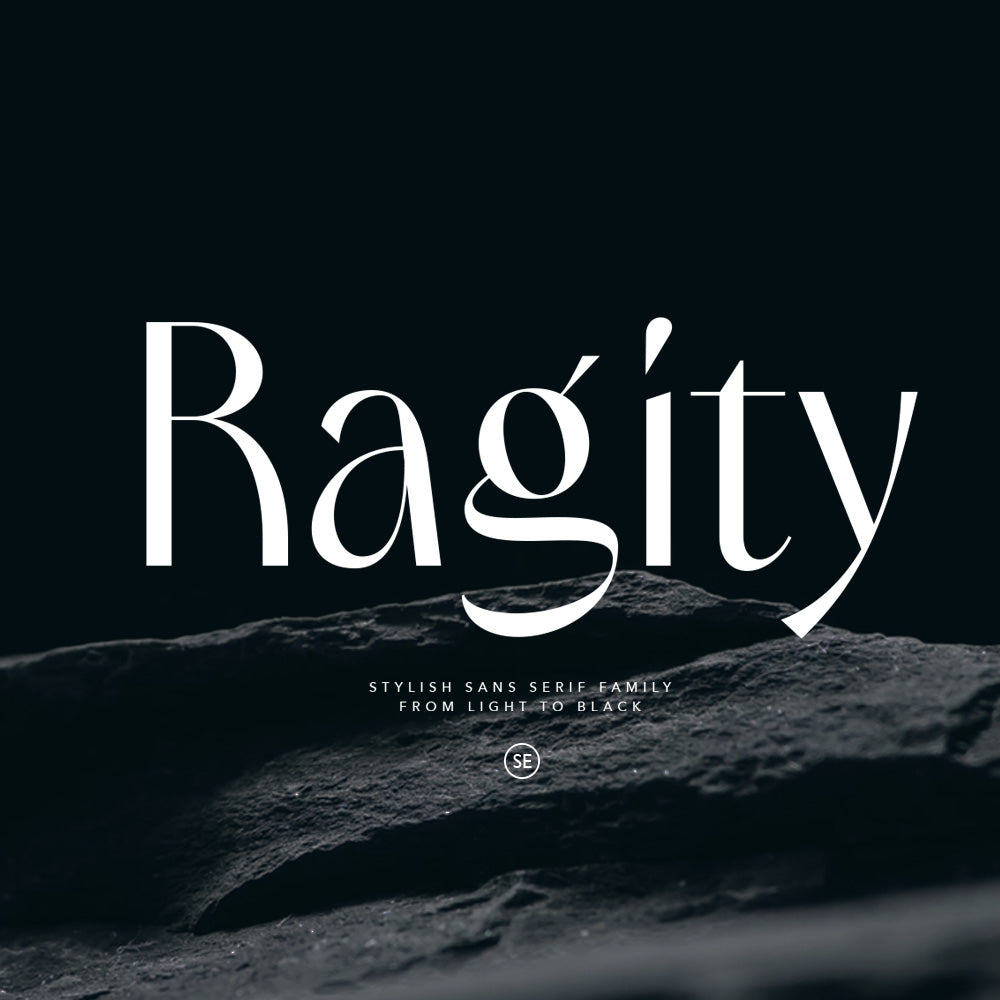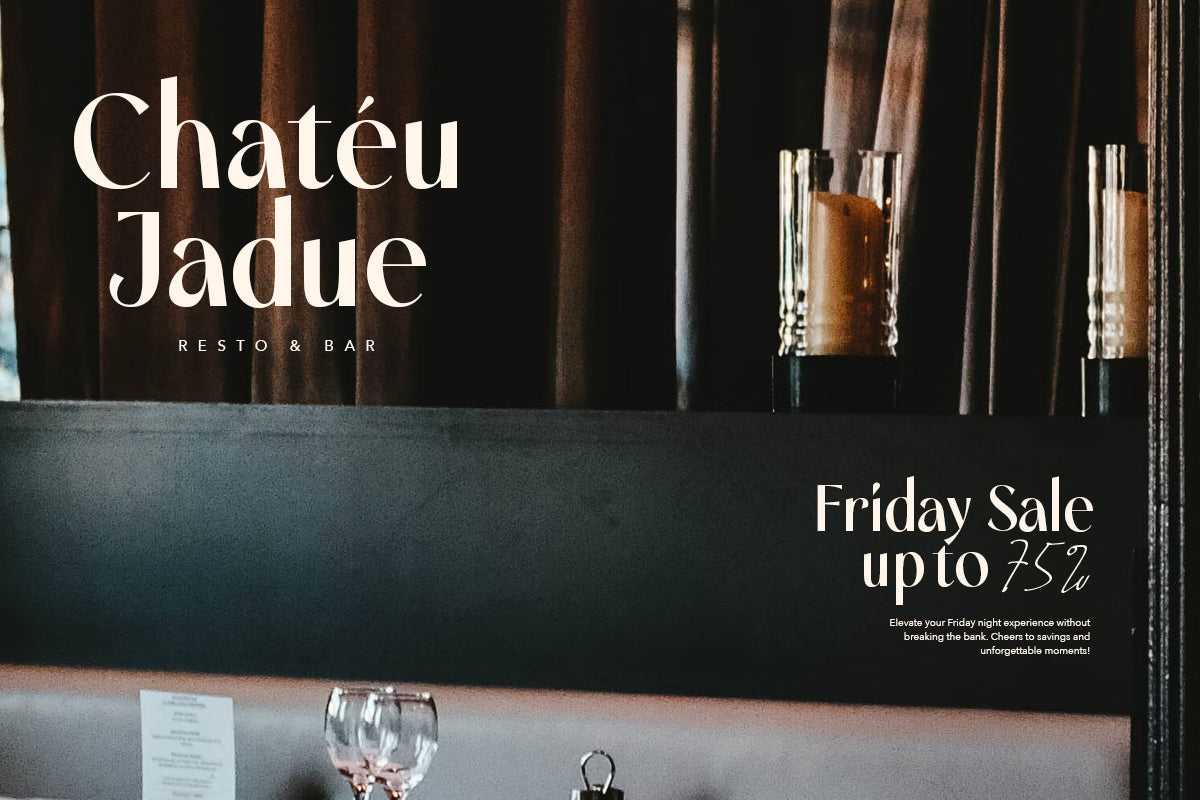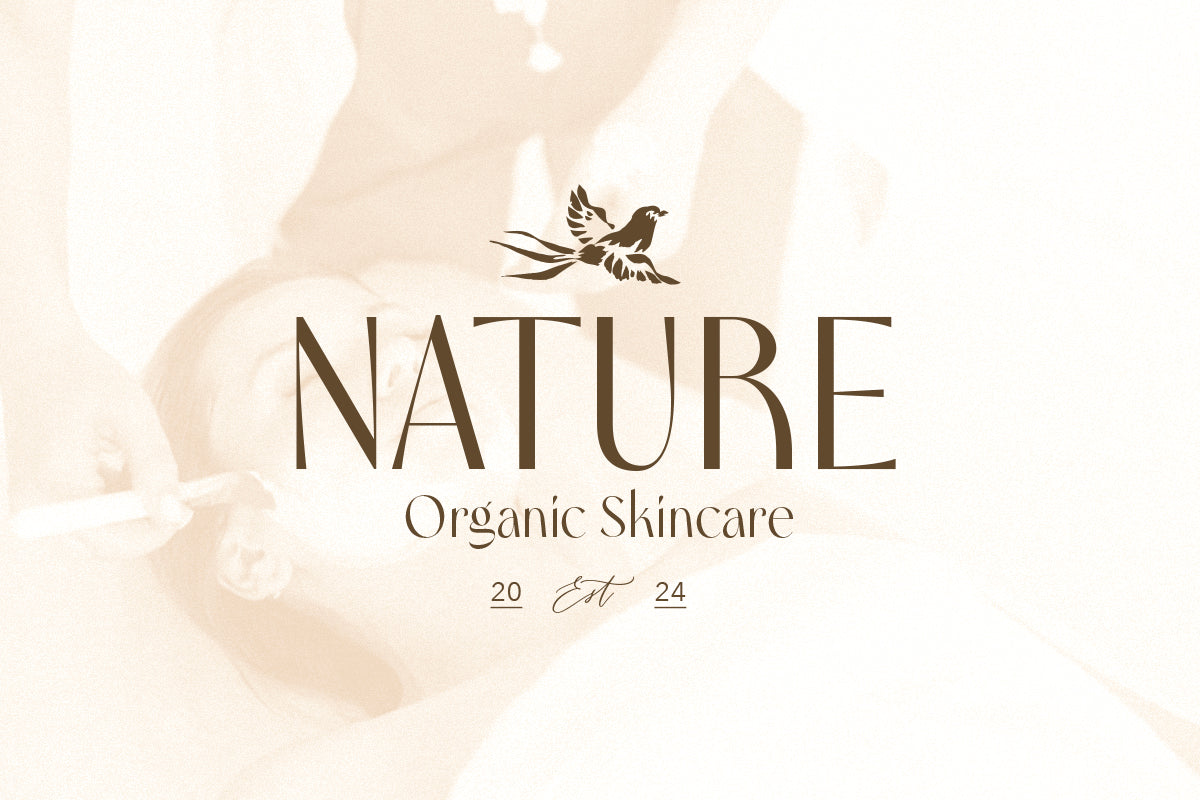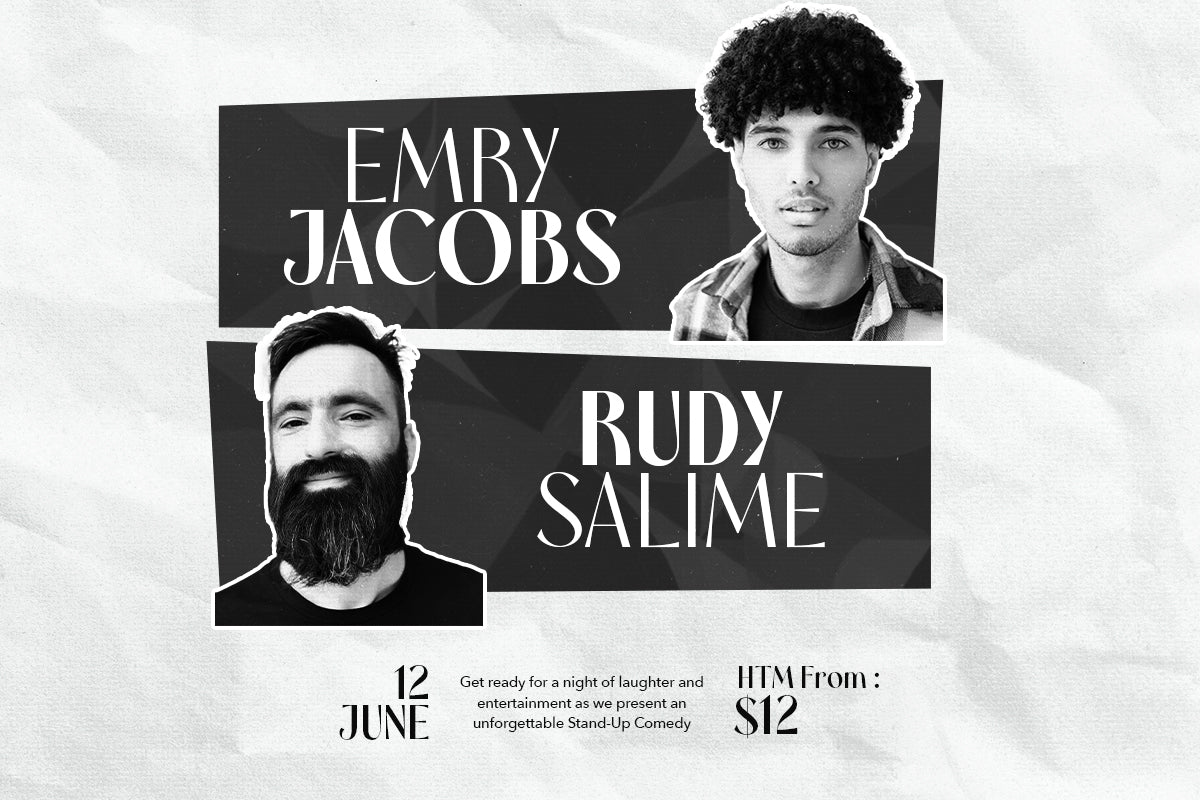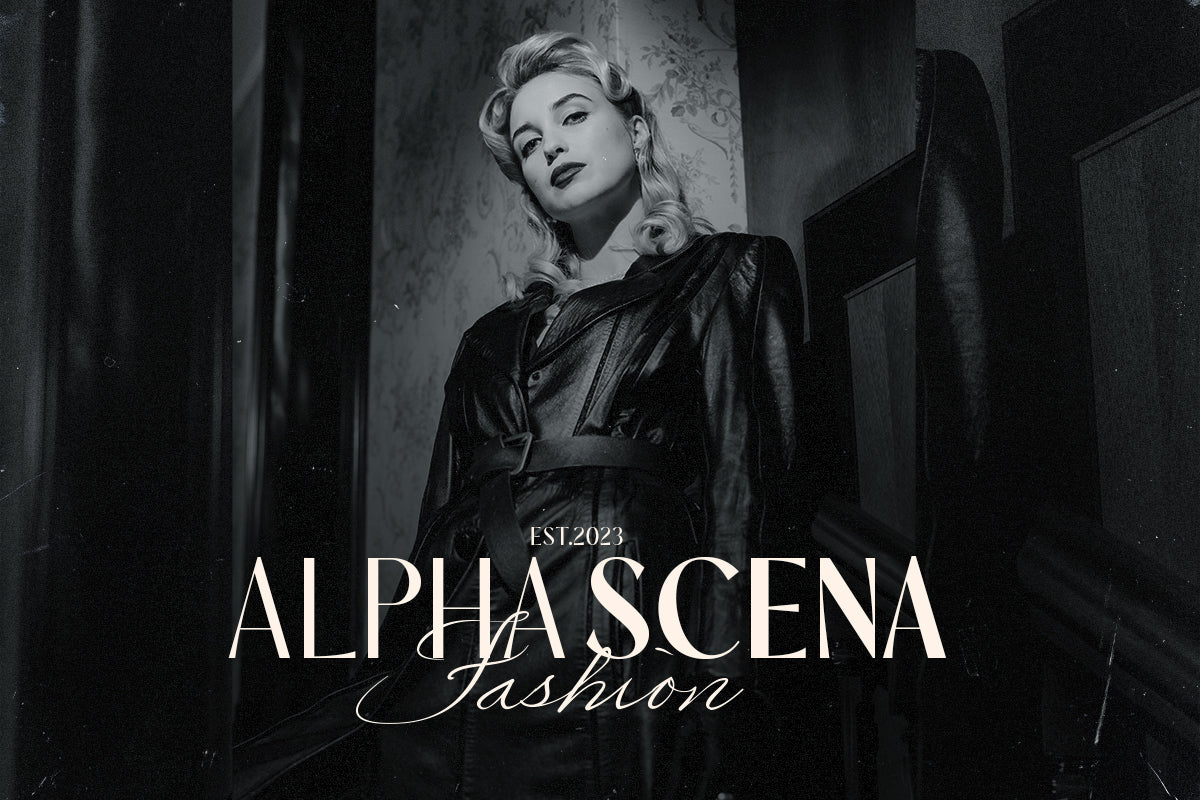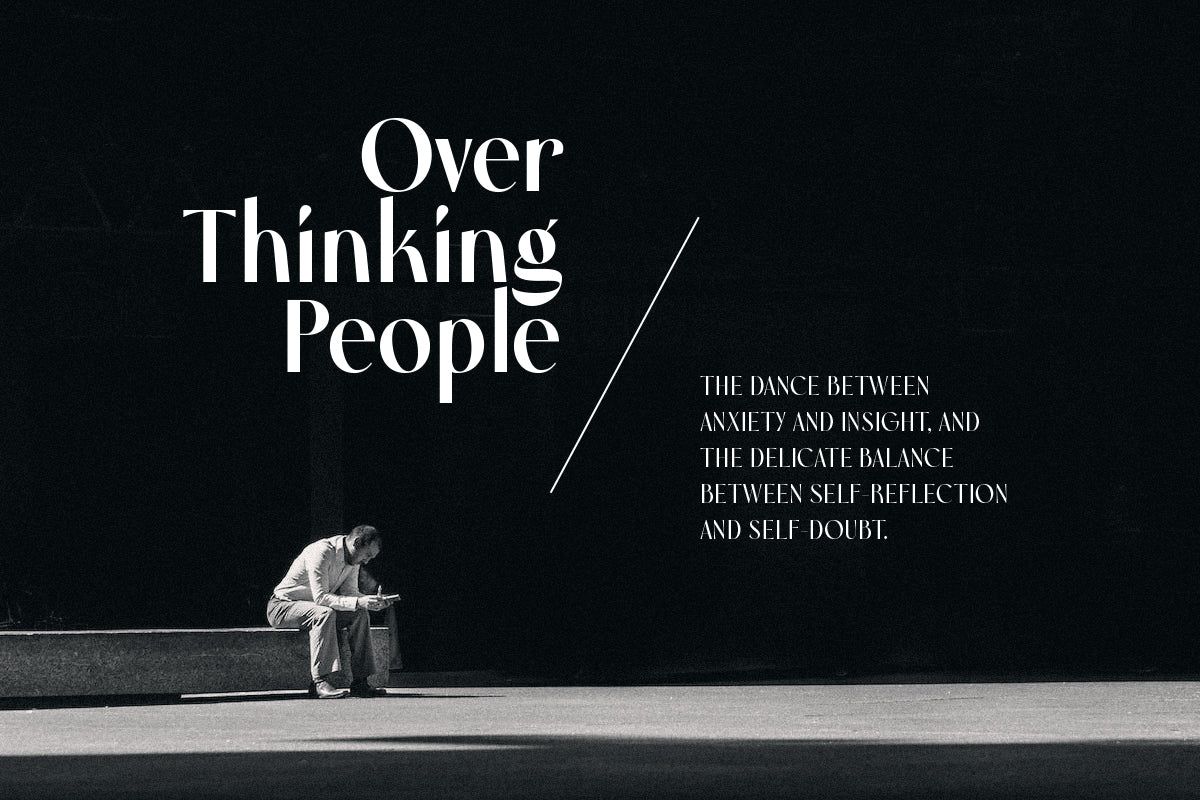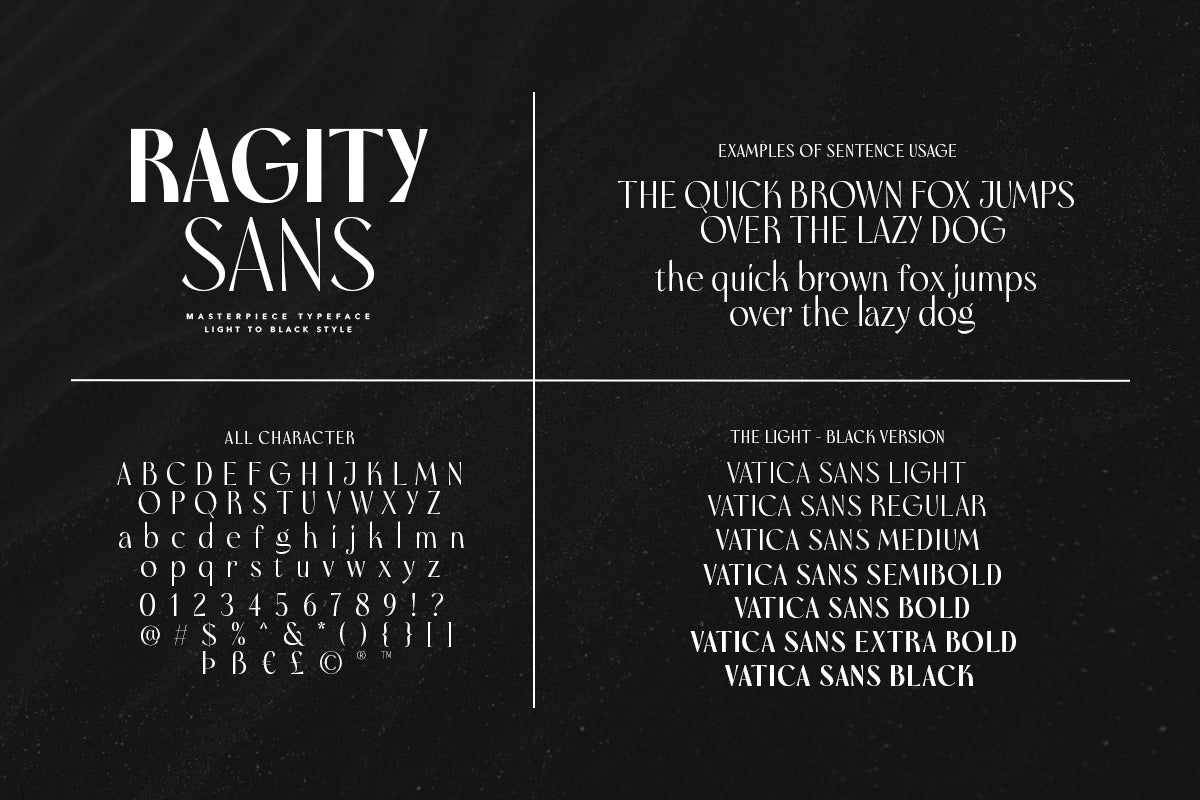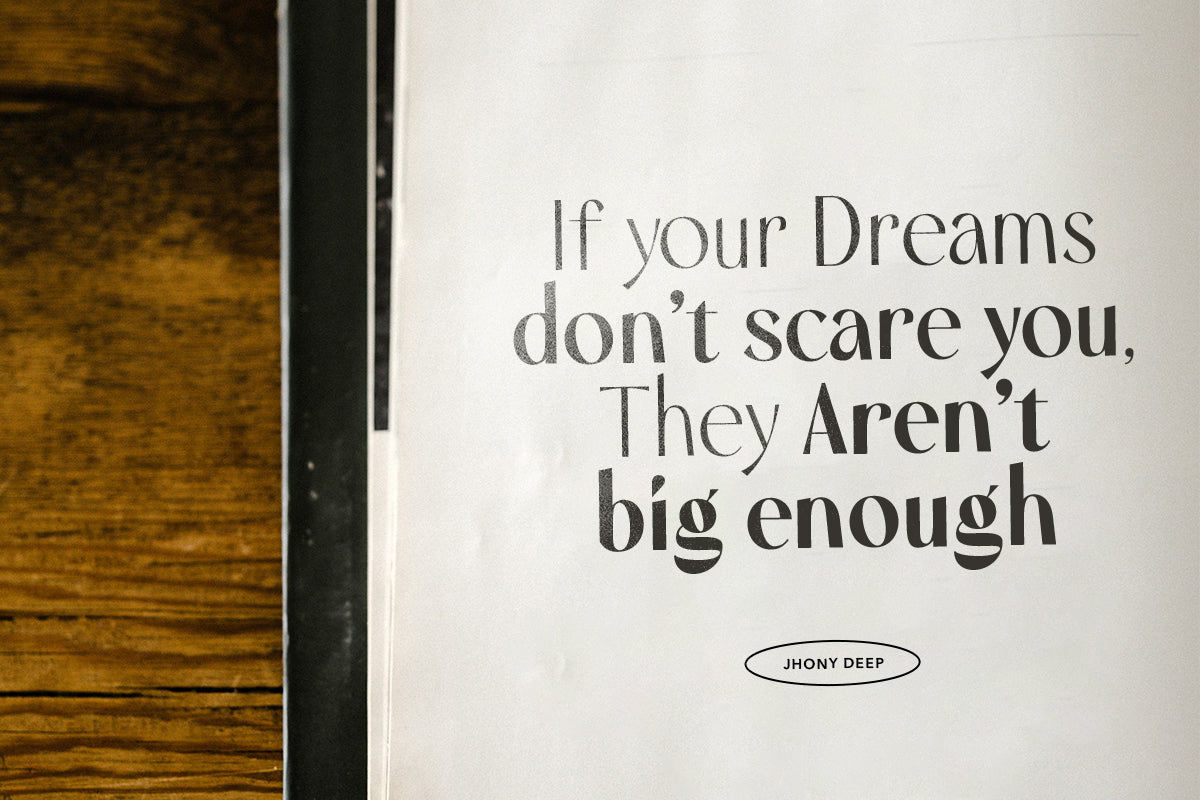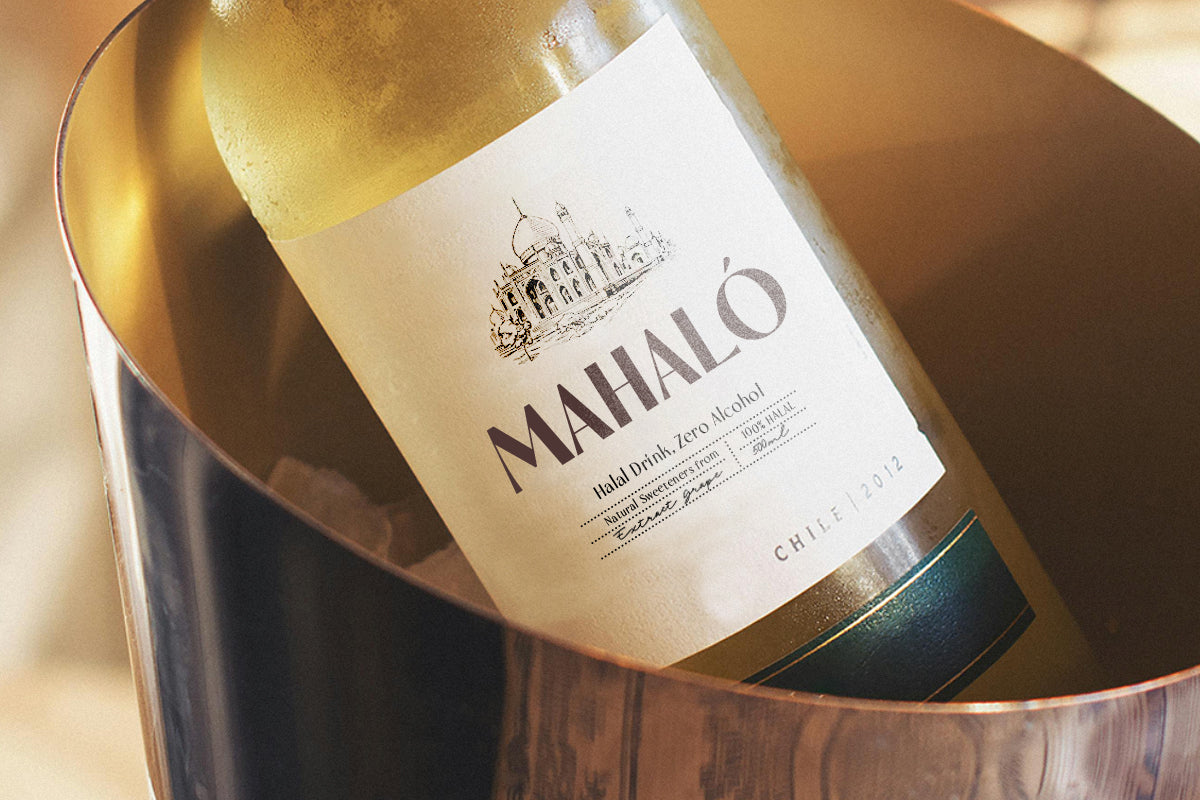
Ragity - Stylish Sans (7 FONTS)
Ragity is a stylish and modern sans that have minimalist looks with beautiful details. You can use this font for any purposes such as wedding invitation, logo, quotes, and also excellent for branding. With 7 weigh from Light to Black, you can choose how bold your project needs. This font also support multi language!
Ragity - Stylish Sans is a modern sans-serif font family that includes 7 weights ranging from Light to Black, offering versatility for various design projects. This font supports multiple languages and features a minimalist design with detailed aesthetics.